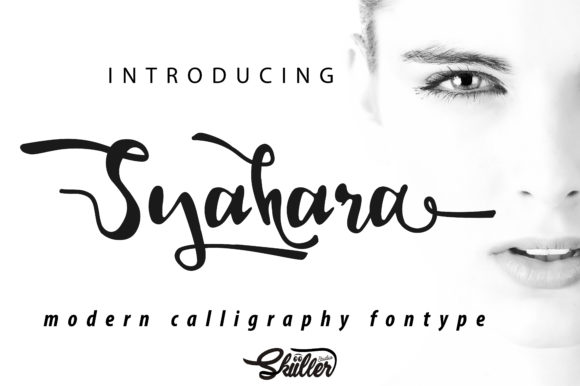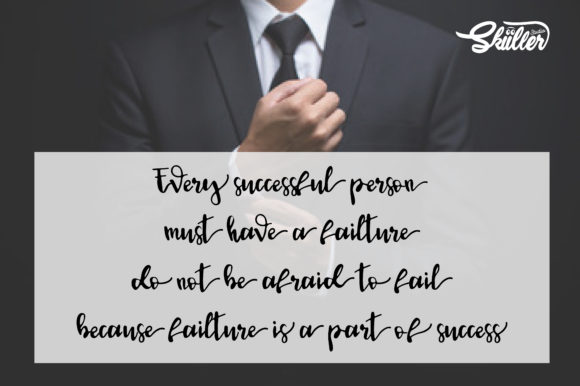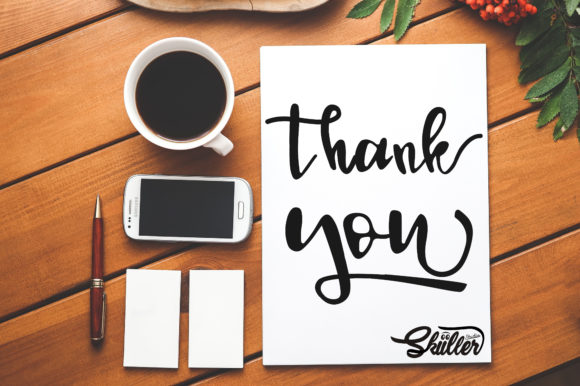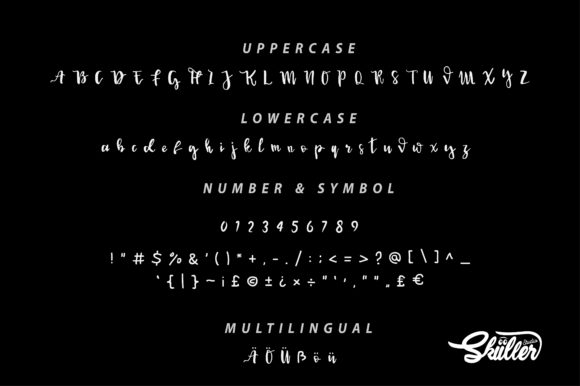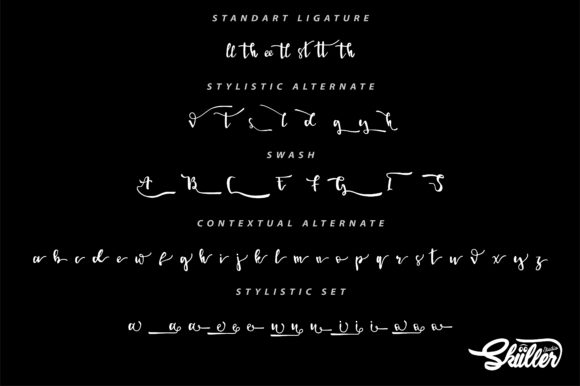
Syahara Font
About Syahara Font
Designed with different calligraphy nuances and beautiful elements, Syahara is a fun and bold font with a unique charm!